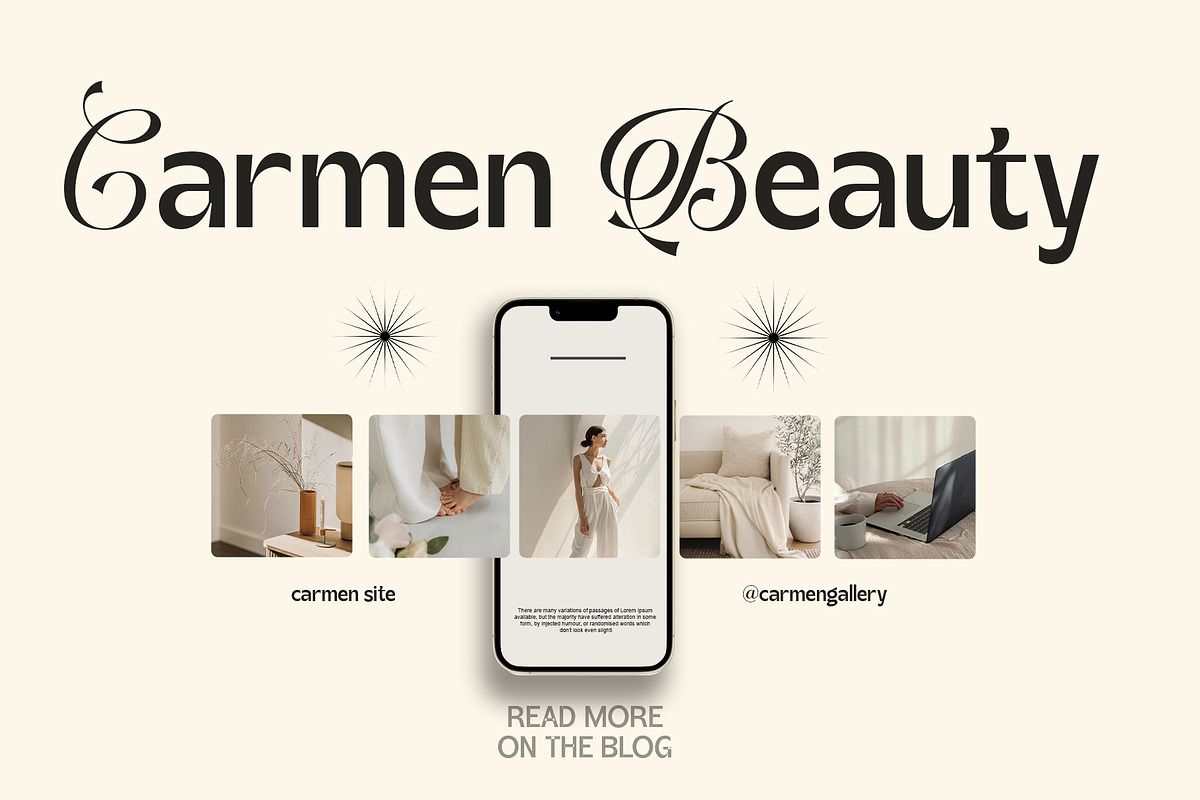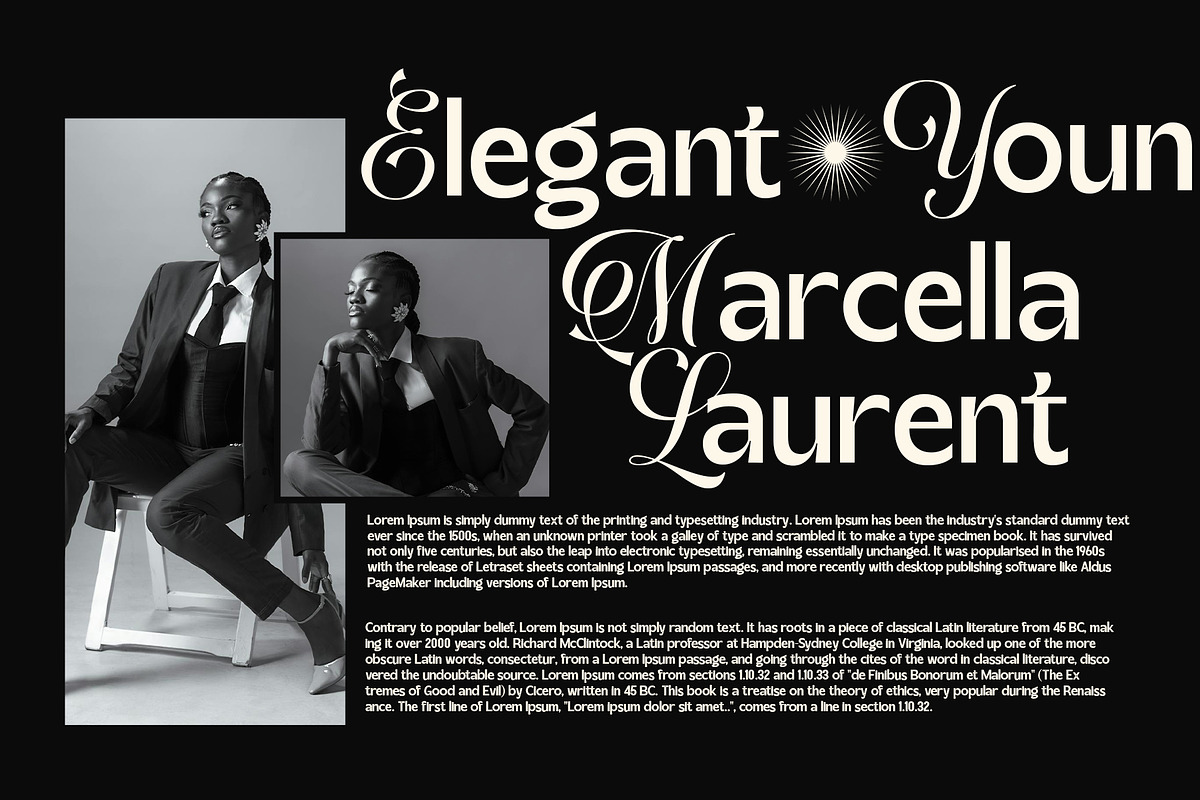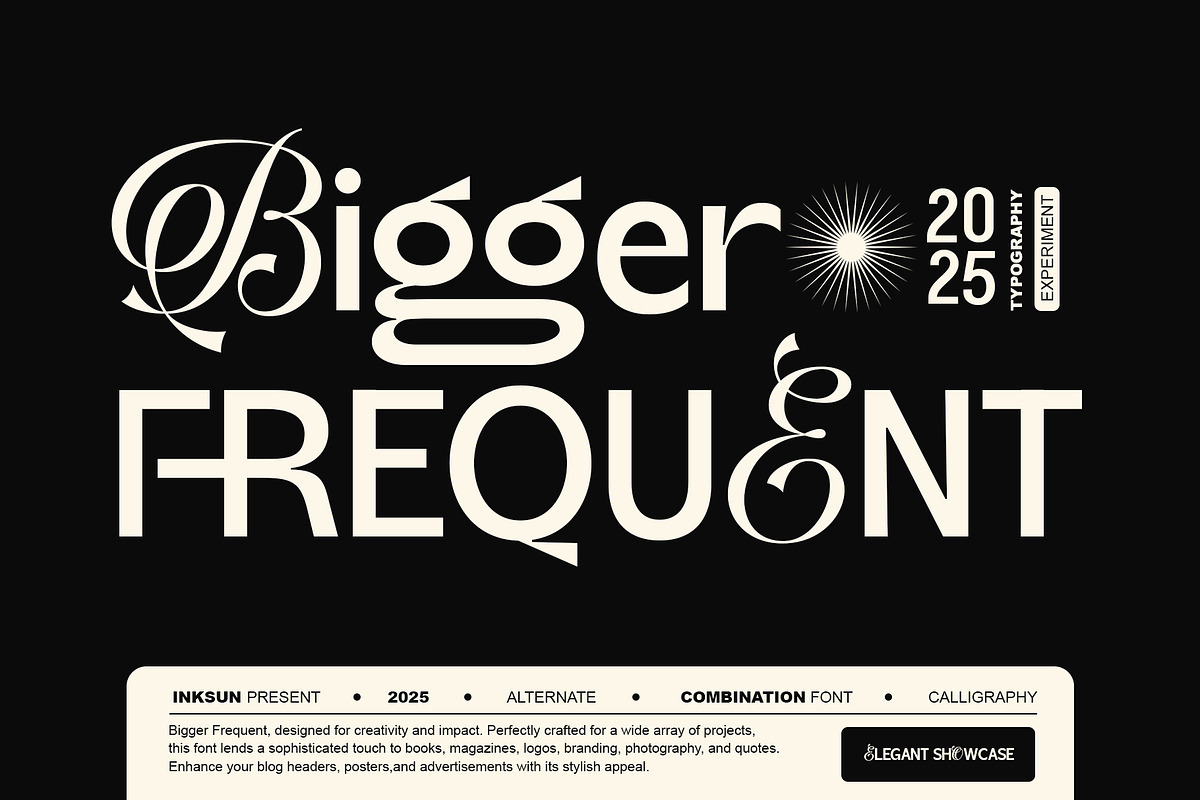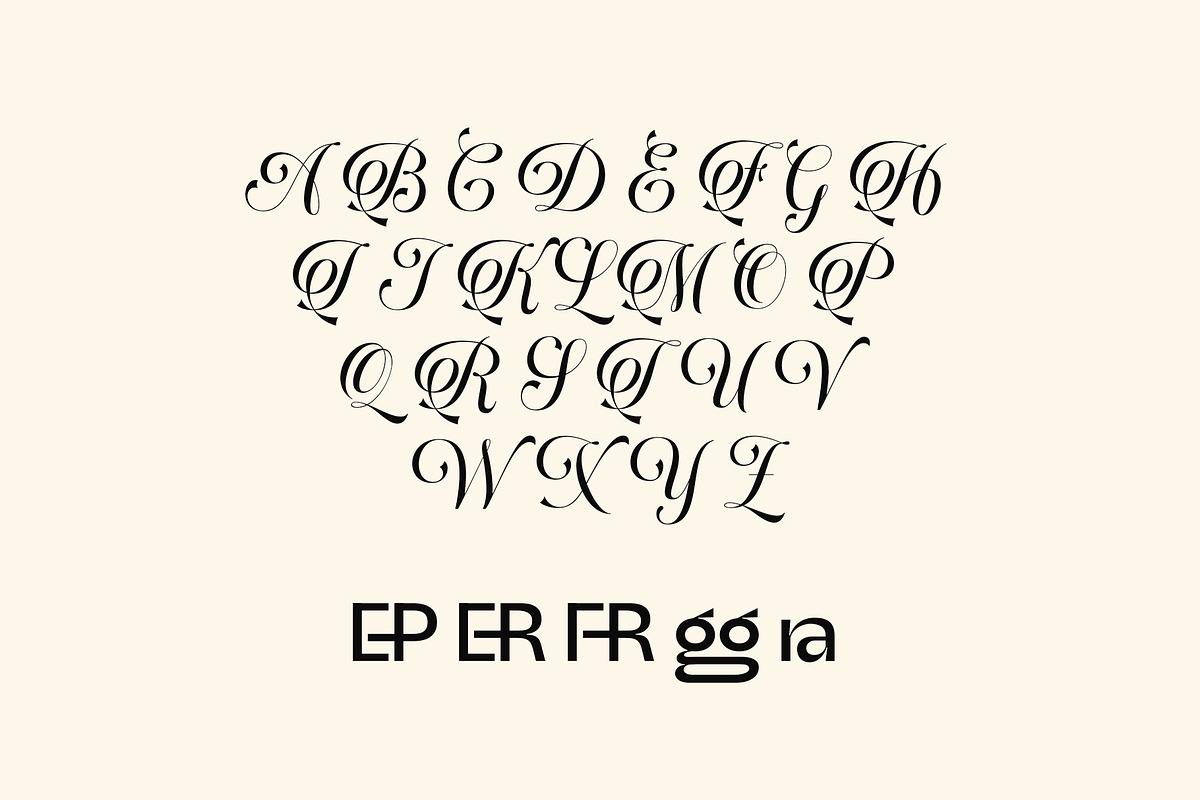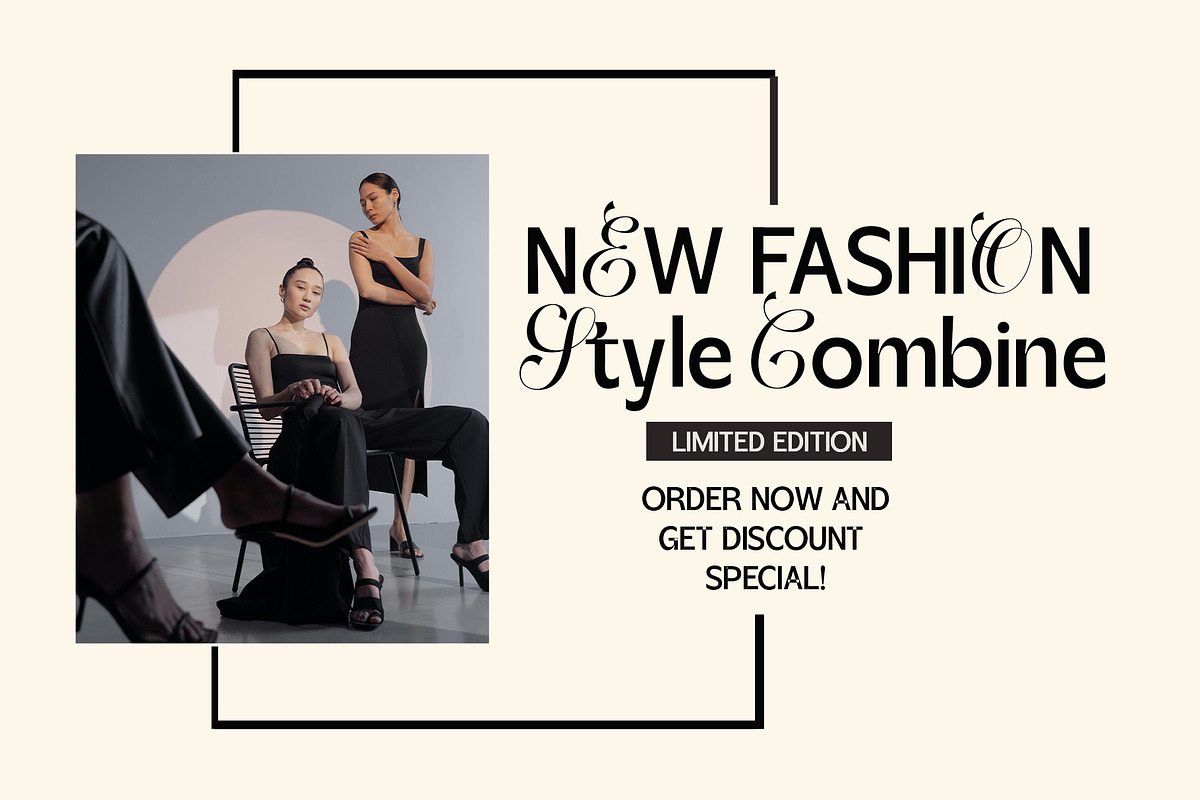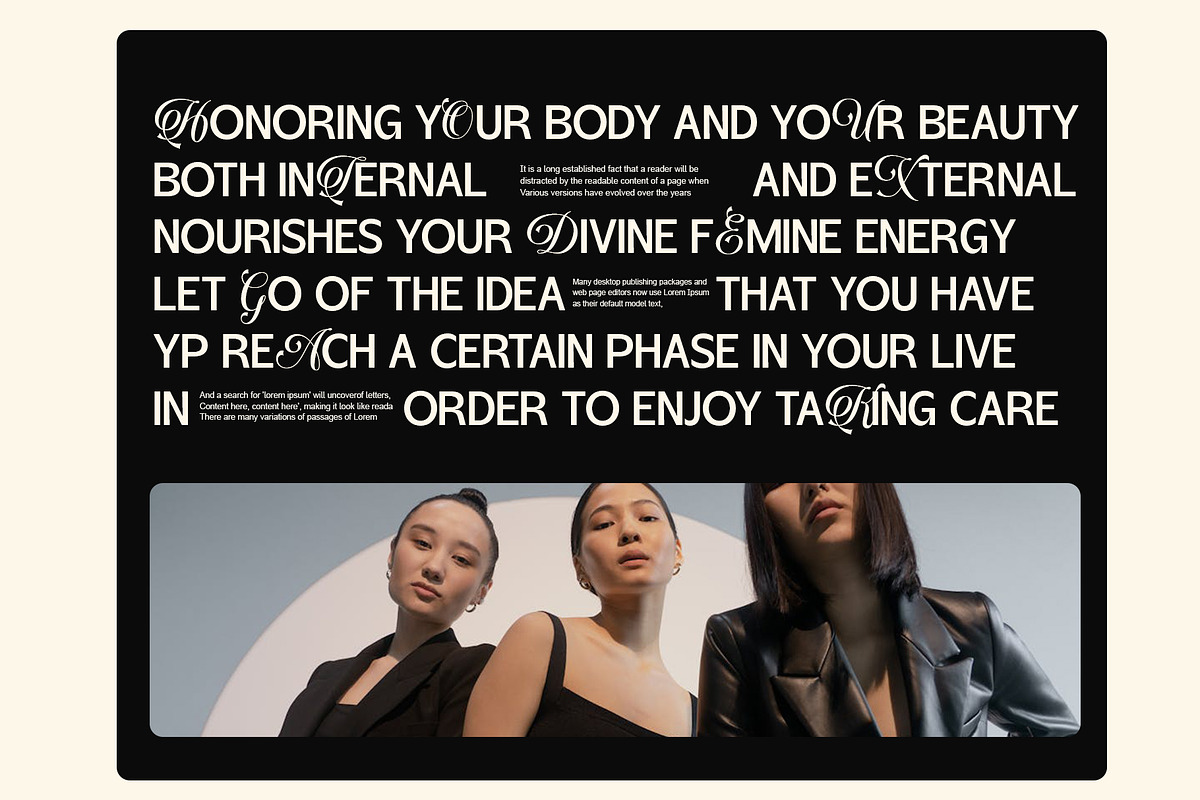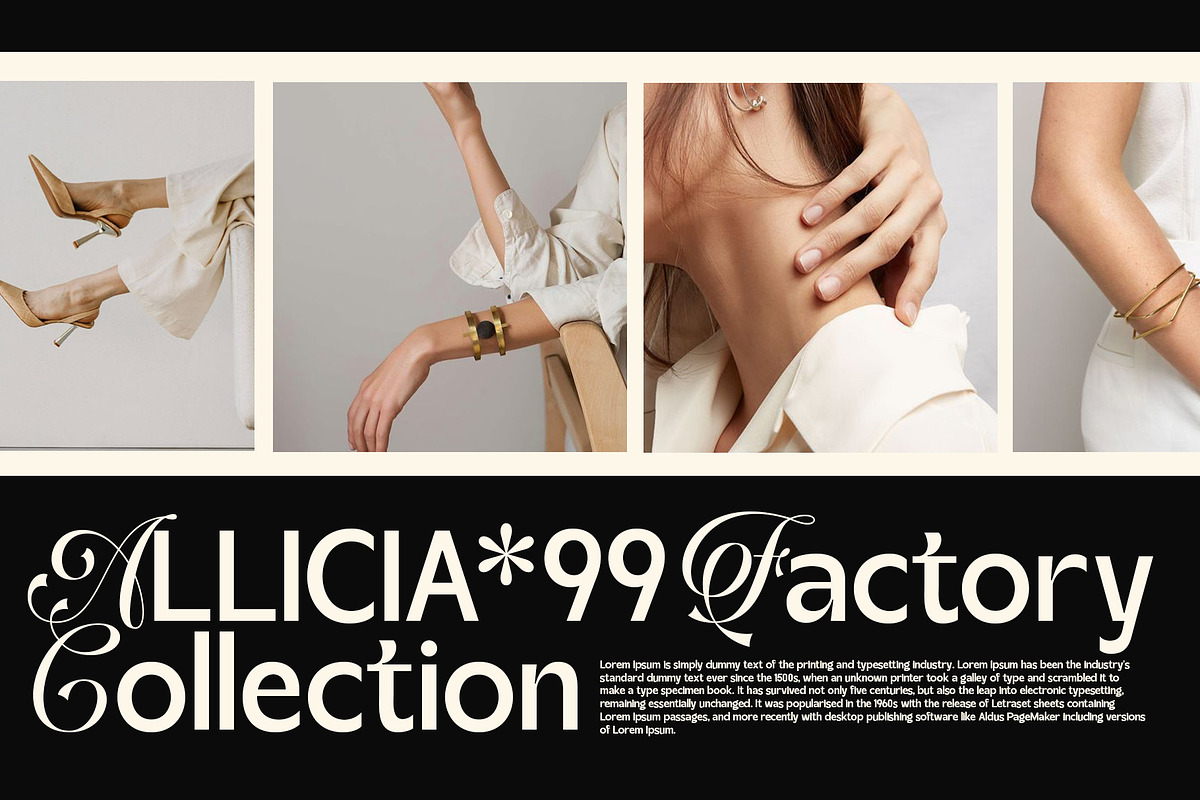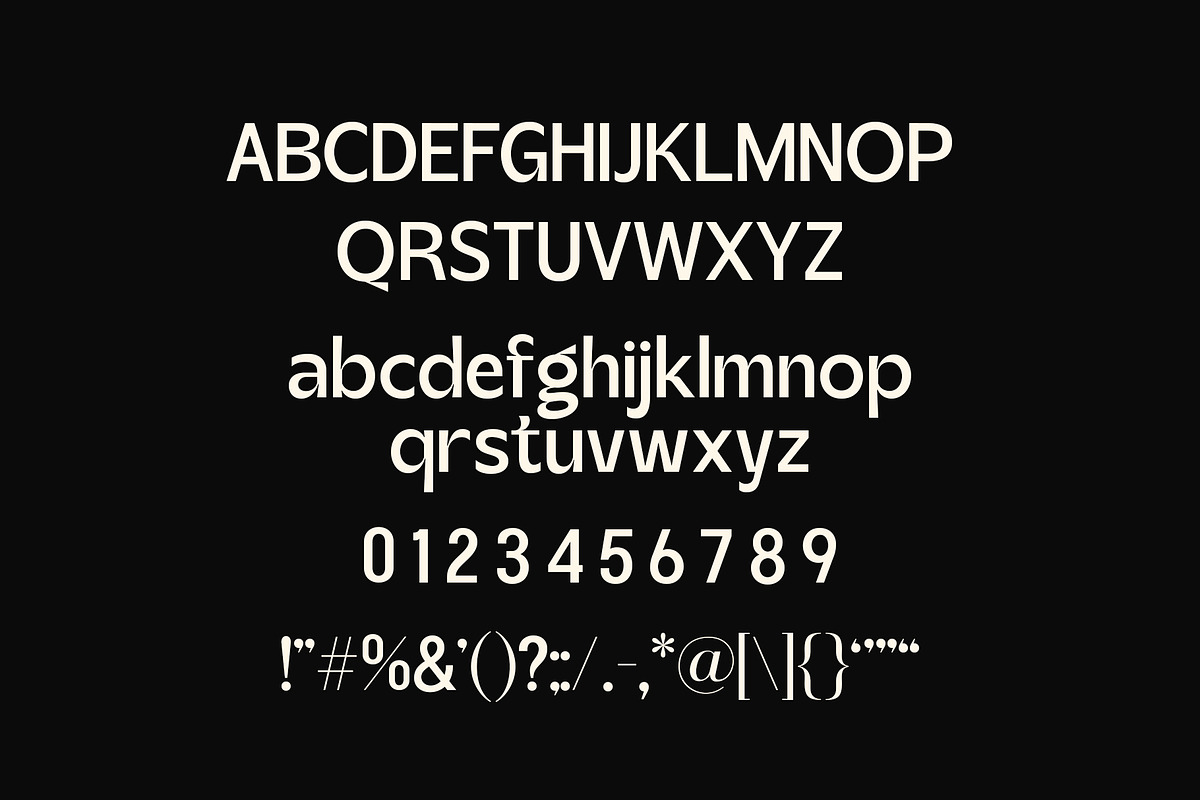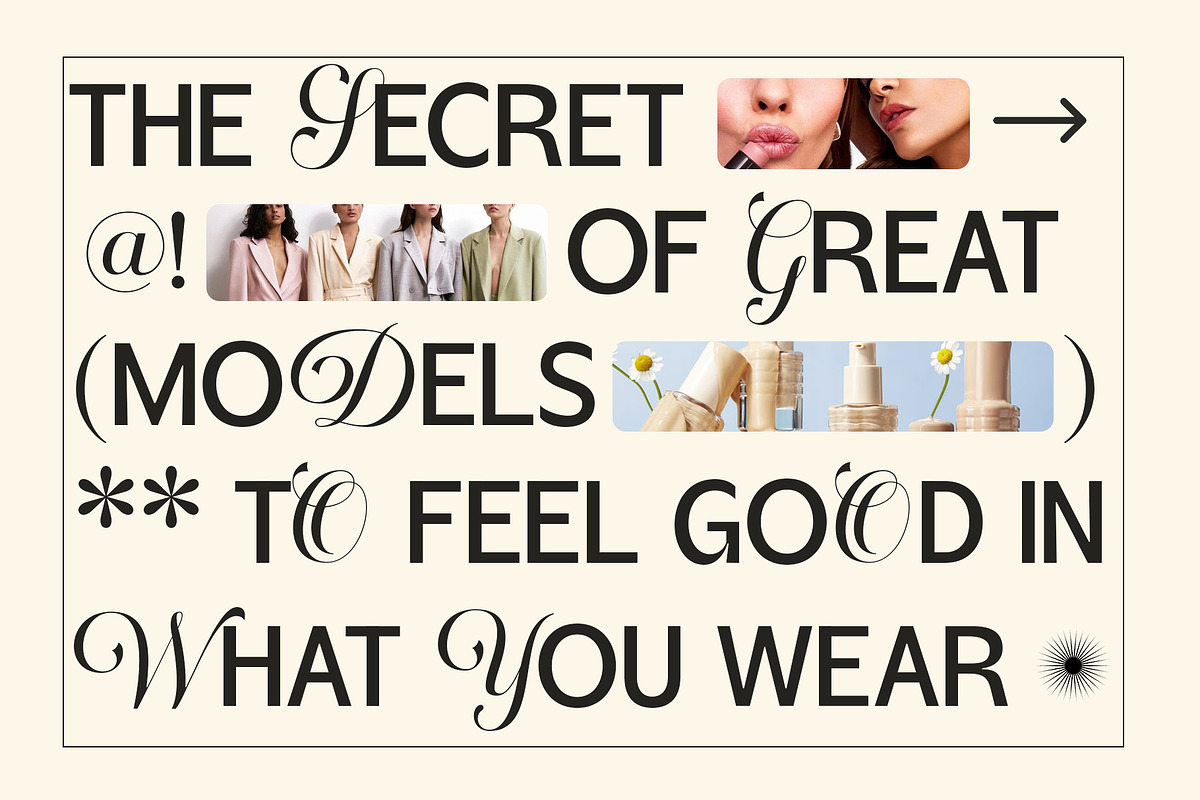
Bigger Frequent
Bigger Frequent will perfect for many project: book, magazines, logo, branding, photography, quotes, blog header, poster, advertisements, etc.
- Numeral
- Functional
- Stylistic